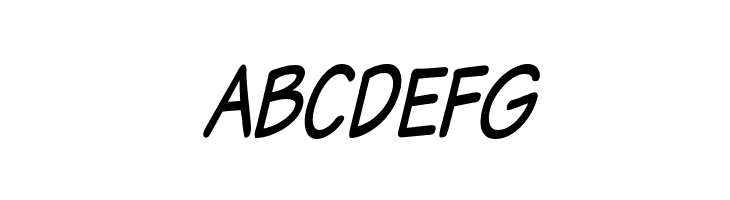
Moon Dart Bold Italic Font
A bold, italicized font with a playful and dynamic style.
( Fonts by Press Gang Studios - Andeh Pinkard - www.pressgang-studios.com )